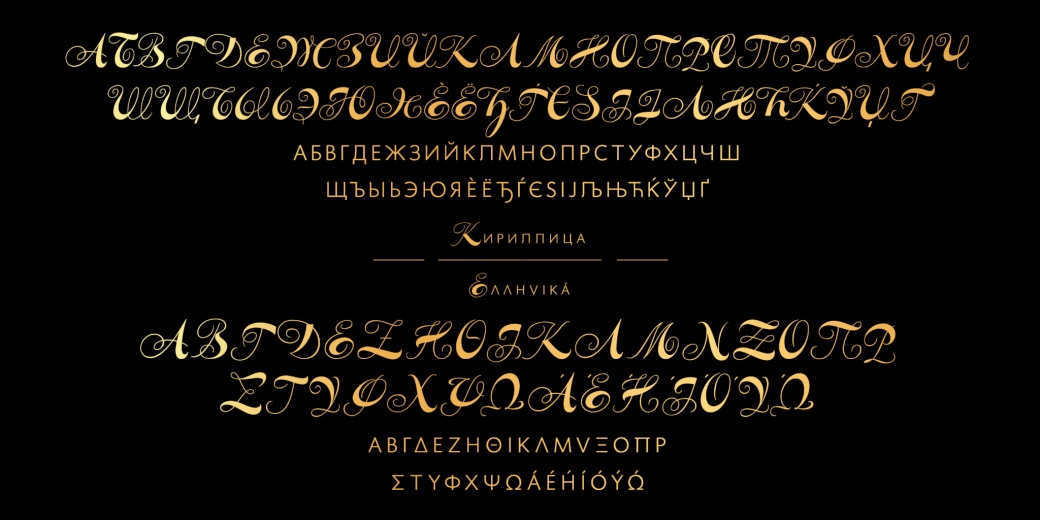
VIP Font
VIP Font is perfect for luxury branding, premium product packaging, high-end fashion magazines, exclusive event invitations, upscale restaurant menus, boutique logos, jewelry catalogs, wine labels, real estate marketing materials, and sophisticated corporate presentations.
VIP Font creates excitement because it embodies elegance and exclusivity with its refined letterforms and sophisticated character design. The font's premium aesthetic instantly elevates any project, making ordinary text appear luxurious and distinguished. Its carefully crafted details and balanced proportions create a sense of prestige that captures attention and conveys quality. The typeface's versatility allows it to work seamlessly across both digital and print media while maintaining its upscale appeal.
The VIP Font family includes multiple weights and styles: Regular, Bold, Light, Italic, Bold Italic, Condensed, Extended, and Outline versions. Each variant maintains the font's signature elegance while offering different levels of visual impact and spacing options.
This premium typeface represents the perfect blend of contemporary design and timeless sophistication. VIP Font Free Download offers designers and businesses an opportunity to access professional-quality typography that commands respect and attention. The font's clean lines and refined character make it ideal for brands seeking to establish a premium market position. Whether you're creating marketing materials for luxury goods, designing elegant wedding invitations, or developing a high-end brand identity, this font delivers the sophisticated appearance that discerning clients expect. Its excellent readability ensures that your message remains clear while the stylish design adds visual appeal. The font performs exceptionally well in both large display sizes and smaller text applications, making it versatile for various design needs. Professional designers appreciate the font's consistent quality and attention to detail, which reflects positively on their work and their clients' brands. The comprehensive character set includes international language support, ensuring global usability for diverse markets and audiences.